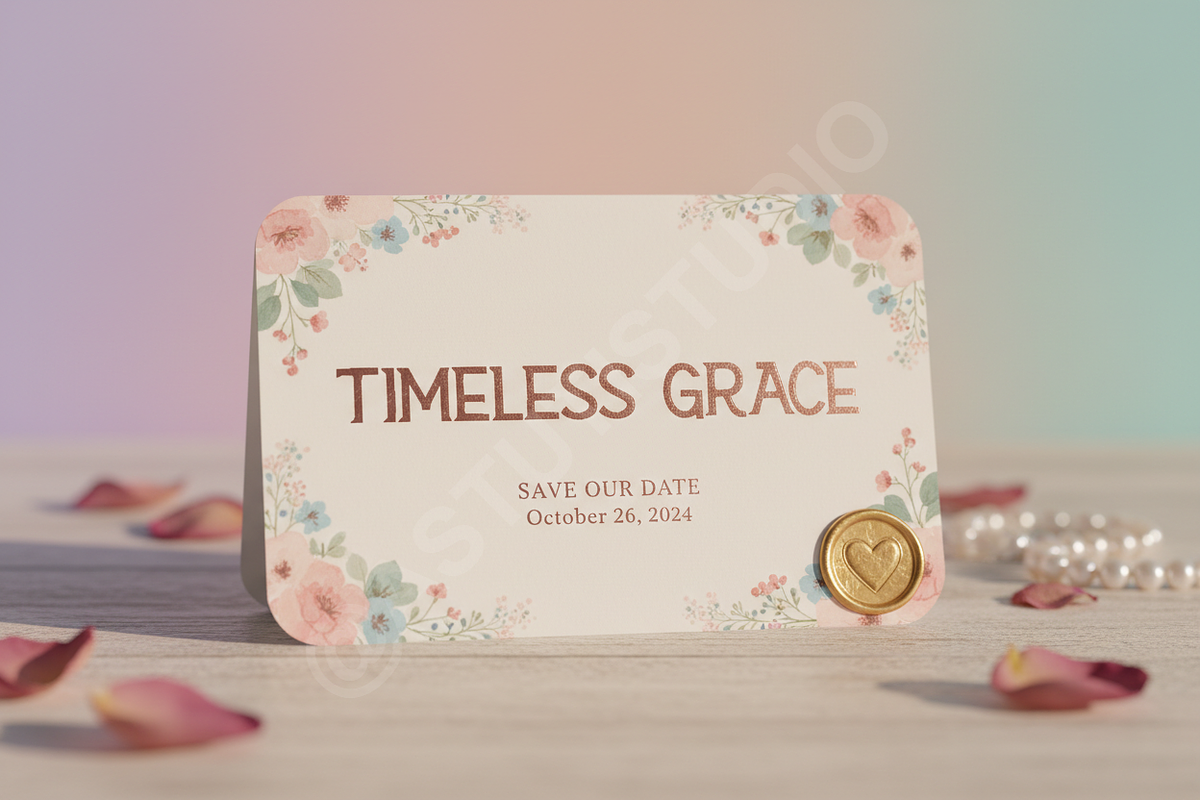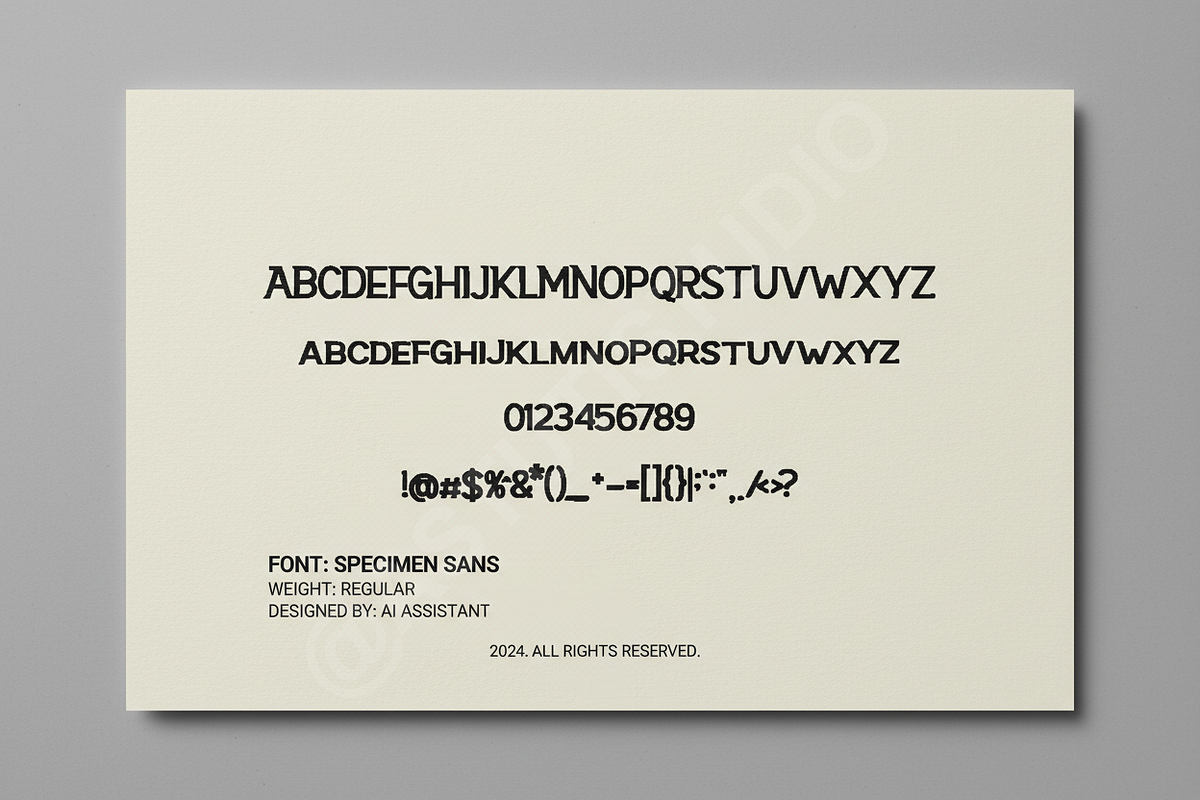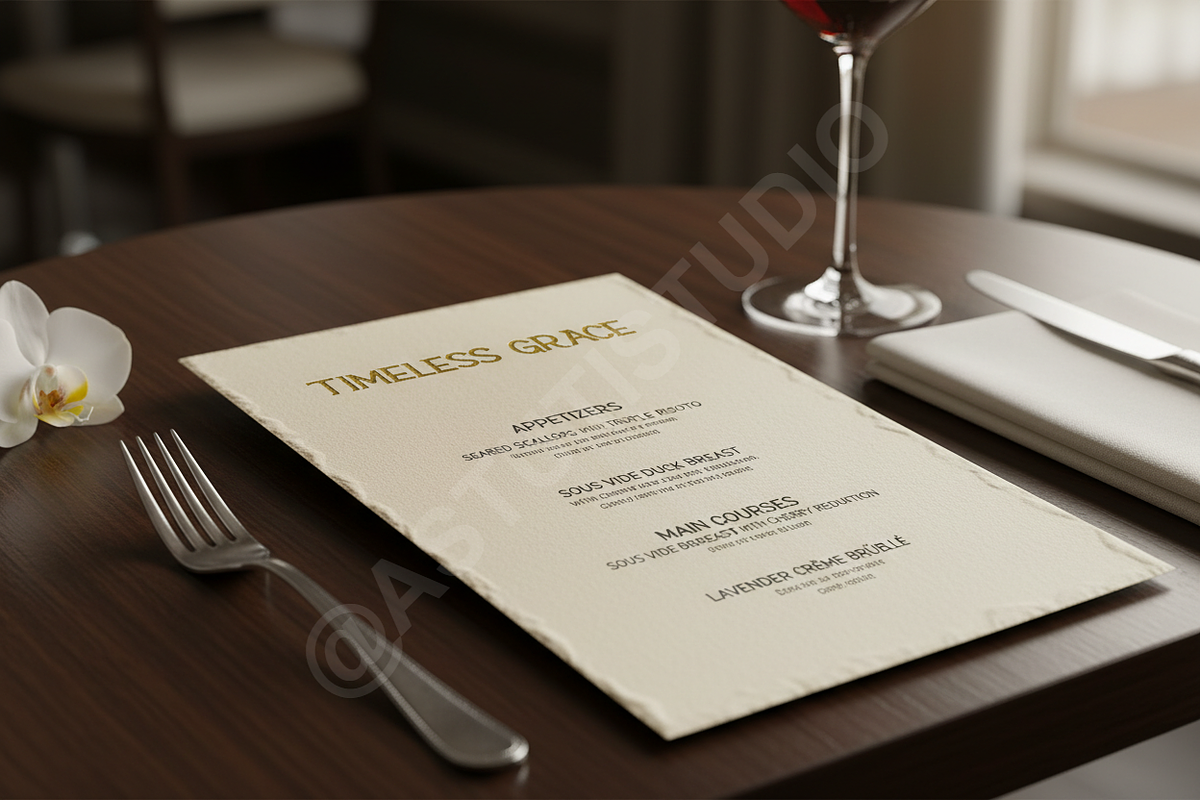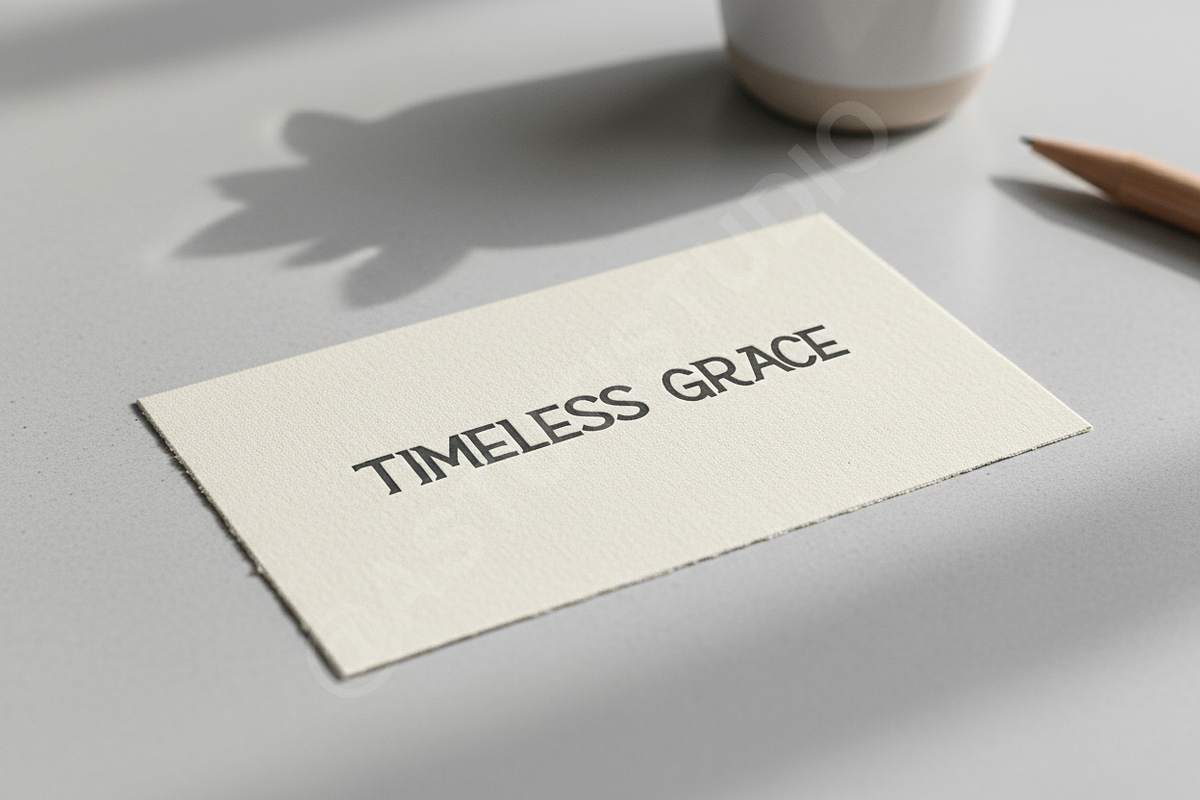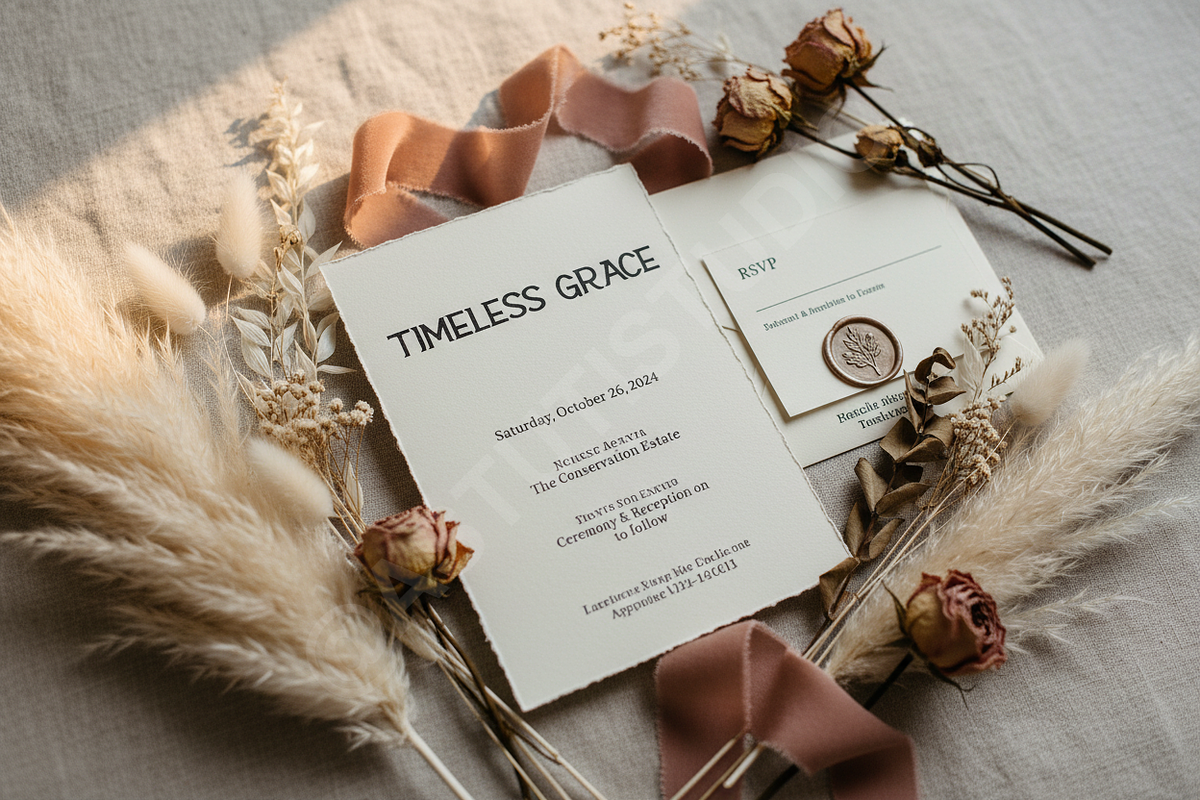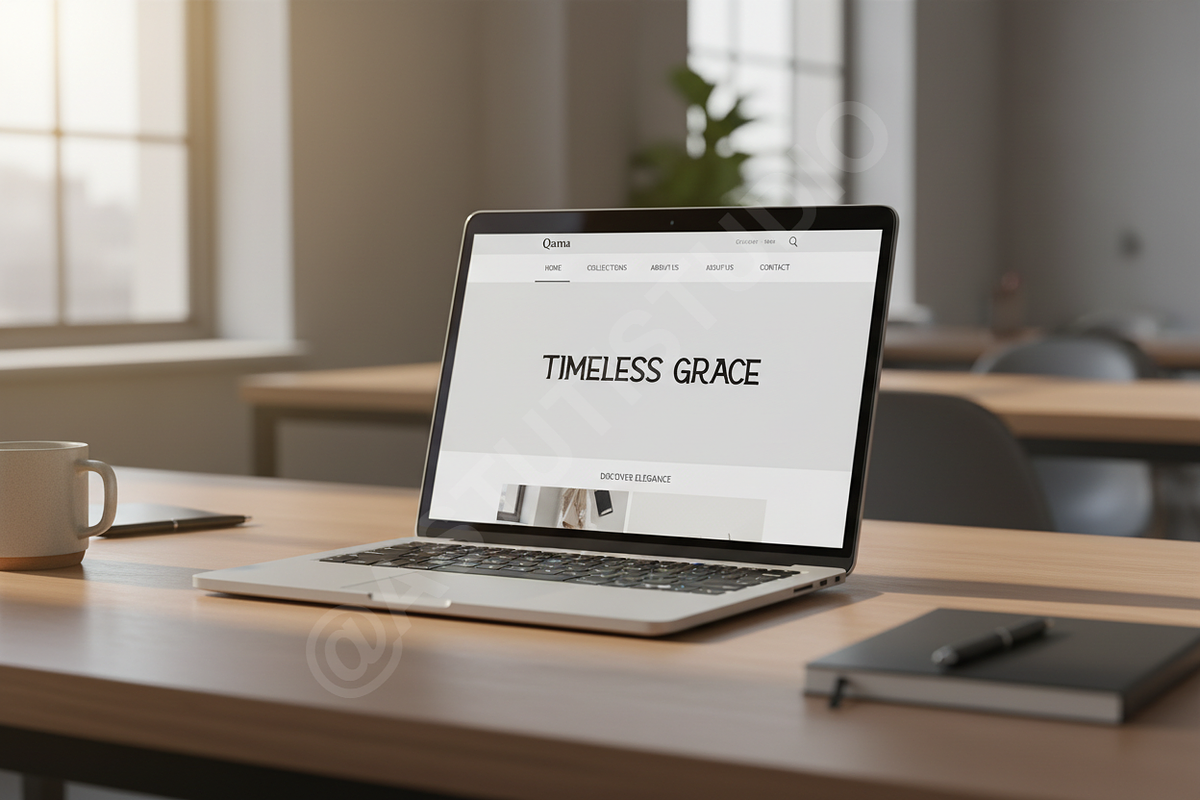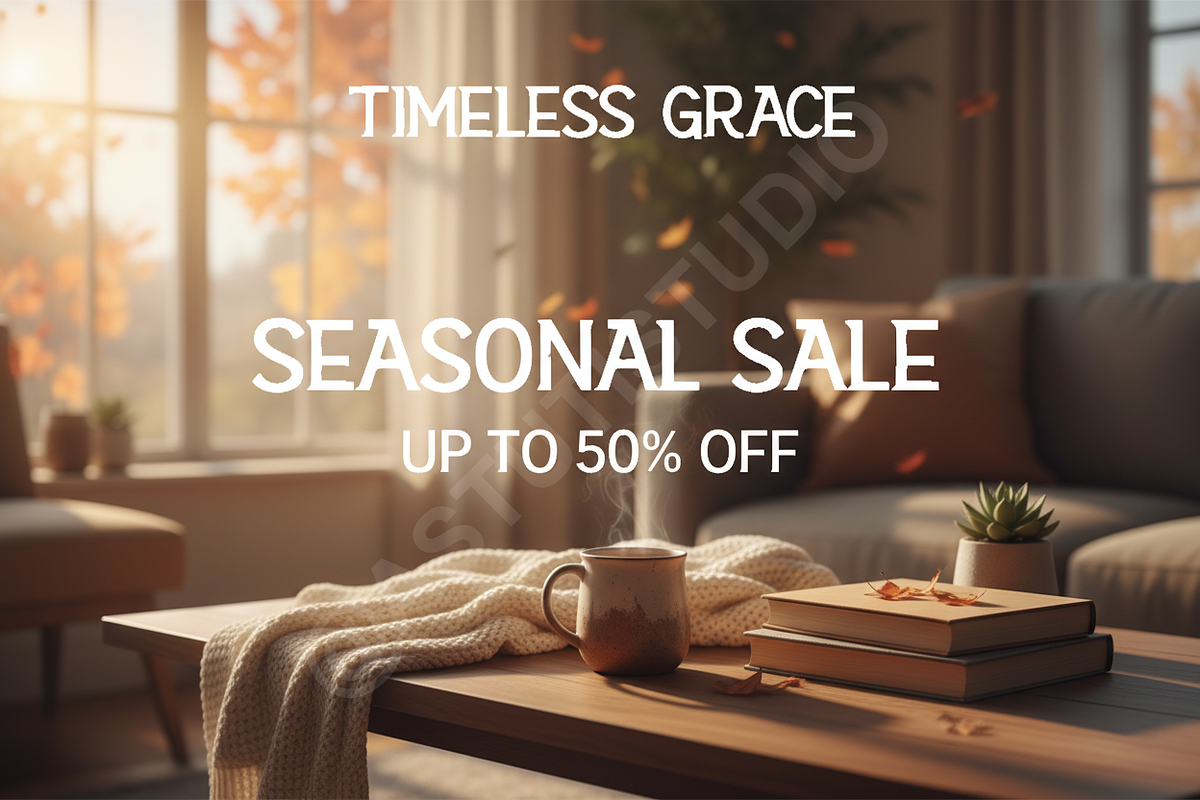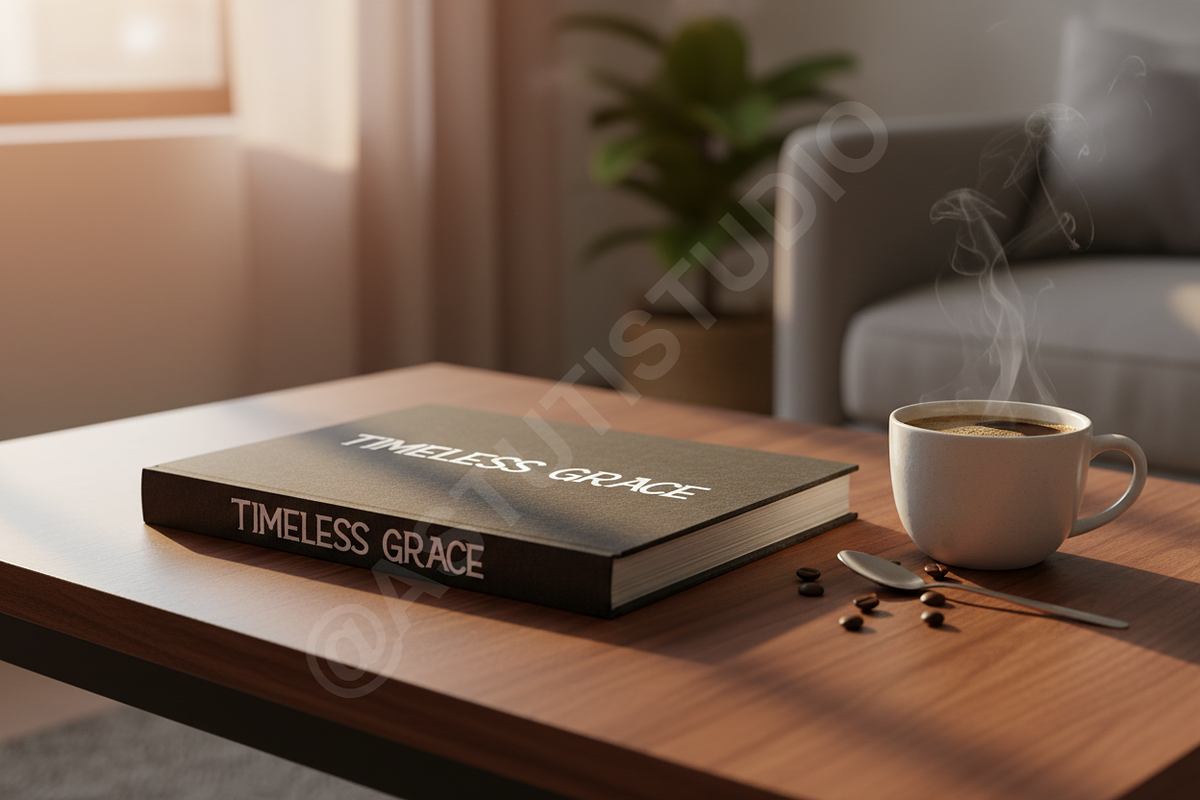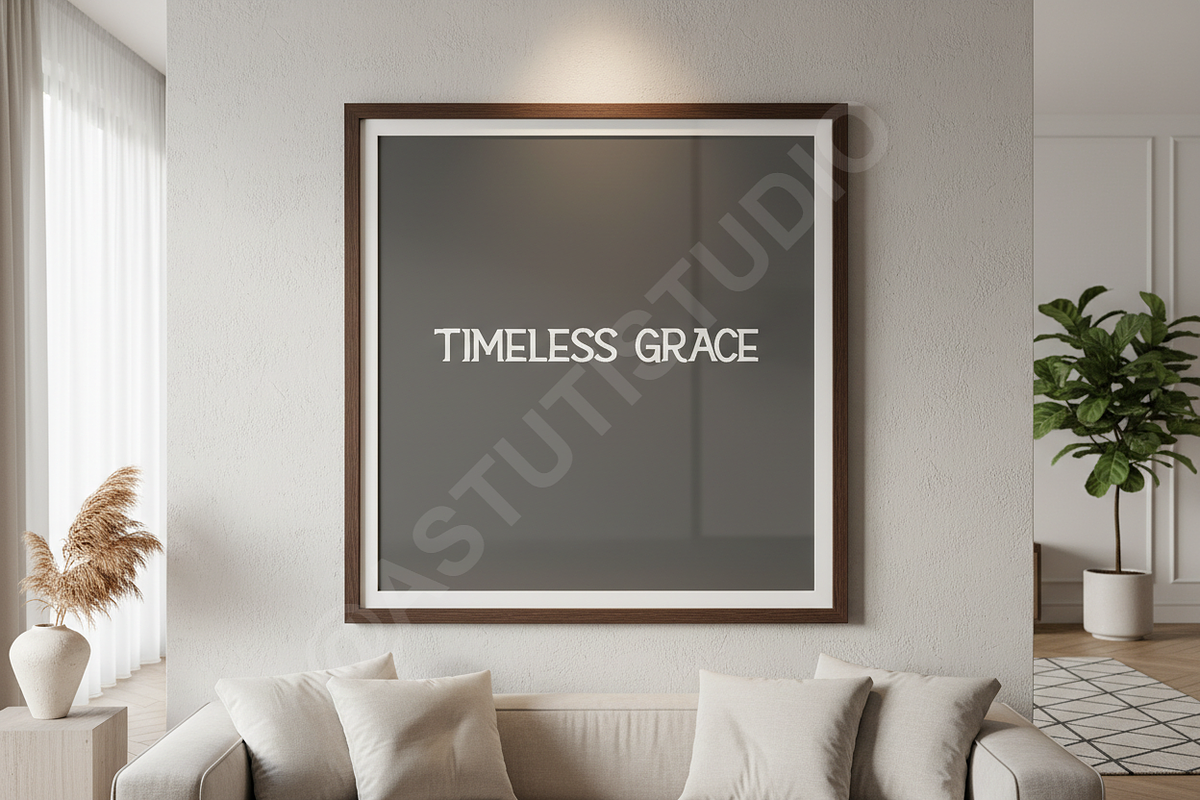
Qama - Elegant Serif Typeface
Introduction:
Qama is a premium serif typeface meticulously crafted for high-end brands and editorial excellence. With its timeless proportions and modern clean lines, Qama brings a sense of effortless luxury to every design. It is the ideal choice for designers seeking a sophisticated aesthetic for high-fashion layouts, minimalist logos, and elevated social media content.
- Sophisticated and modern serif design
- Clean, legible letterforms optimized for both print and digital
- Extensive character set including multilingual support
- Hand-crafted ligatures and unique stylistic alternates
- Precision kerning for professional-grade typography
- Full set of uppercase and lowercase characters
- Comprehensive numerals and punctuation
- Support for over 20 international languages